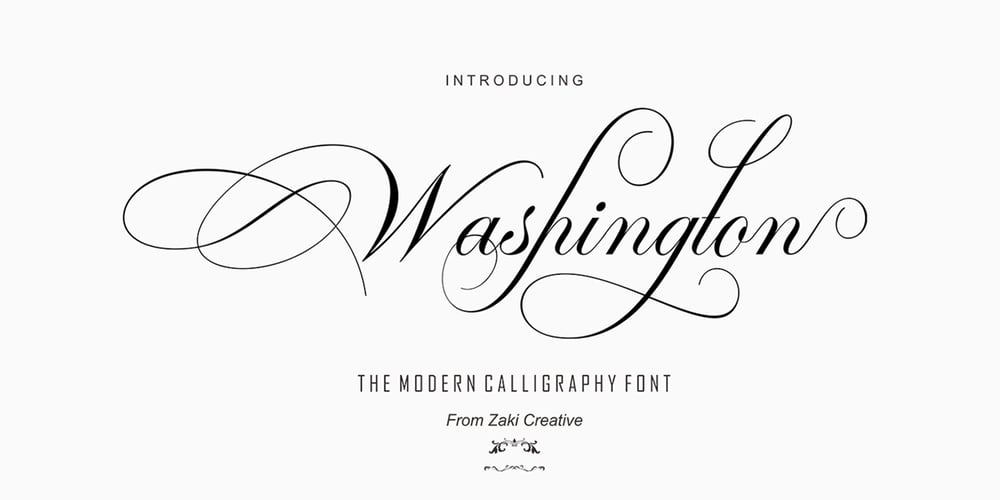
Washington Lumut Font Family was designed by Teuku Muhammad Zaki and published by Zaki Creative. Washington Lumut contains 1 styles and family package options. The Washington Lumut calligraphy is calligraphy font with a classic style and a touch of elegance, inspired by the handwriting of Italian women and ancient manuscripts. Carefully designed to work together in harmony that makes it very suitable for wedding media, book covers, greeting cards, logos, branding, business cards and certificates, even for any design work that requires a classic, formal or luxurious.Try Washington Lumut Calligraphy, enjoy the richness of OpenType features and let her fun and elegant excitement make you happy and enhance your creativity! You can use this font very easily.multilingual support and special ligaturesIf you do not have programs that support OpenType features like Adobe Illustrator and CorelDraw X Versions, you can access all alternative flying machines using Font Book (Mac) or Character Map (Windows):Do not forget to see, buy, like and share my other great productsAnd feel free if you have a question, please contact me : zakicreative6@gmail.com Thank you for purchases.!